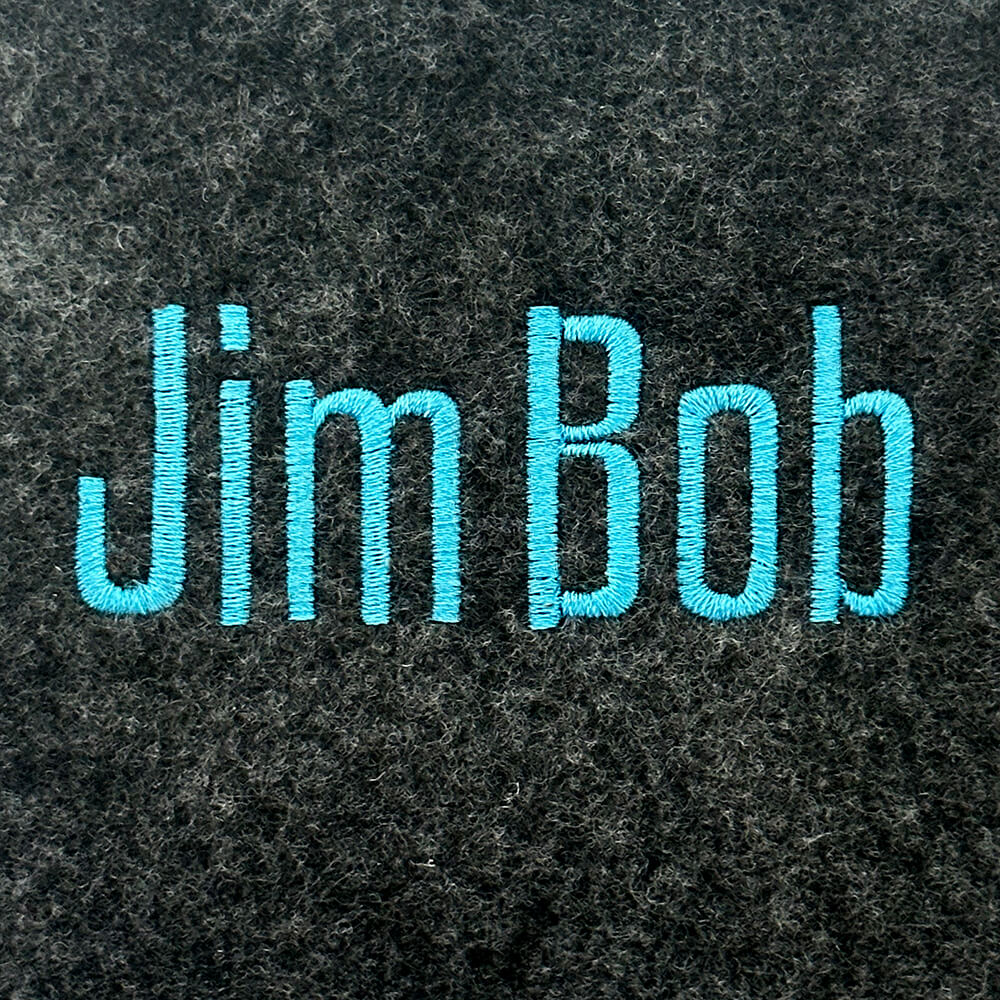
Jim Bob Embroidery Font
The Jim Bob Embroidery Font features a bold, casual style that adds playful personality and a relaxed handmade feel to your projects.
Jim Bob – Machine Embroidery Font
All upper case and lower case letters and numbers